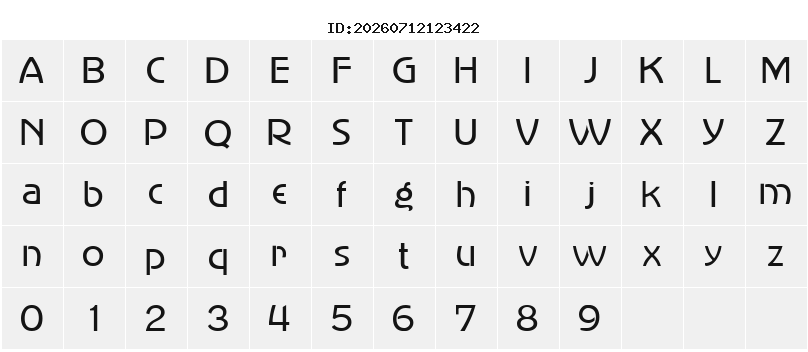
MadAve Preview
• Font Name: MadAve
• Font Style: Madison Avenue
• Font ID: FInk:Madison Avenue
• Full Font Name: Madison Avenue
• Version: 1.0 Sun Dec 06 01:39:18 1992
• PostScript Name: Madison-Avenue
• Character Count: 217
About MadAve.ttf
MadAve.ttf is a modern, elegant sans-serif font designed for ultimate readability and visual harmony. Perfect for branding, headlines, web design, and print materials.